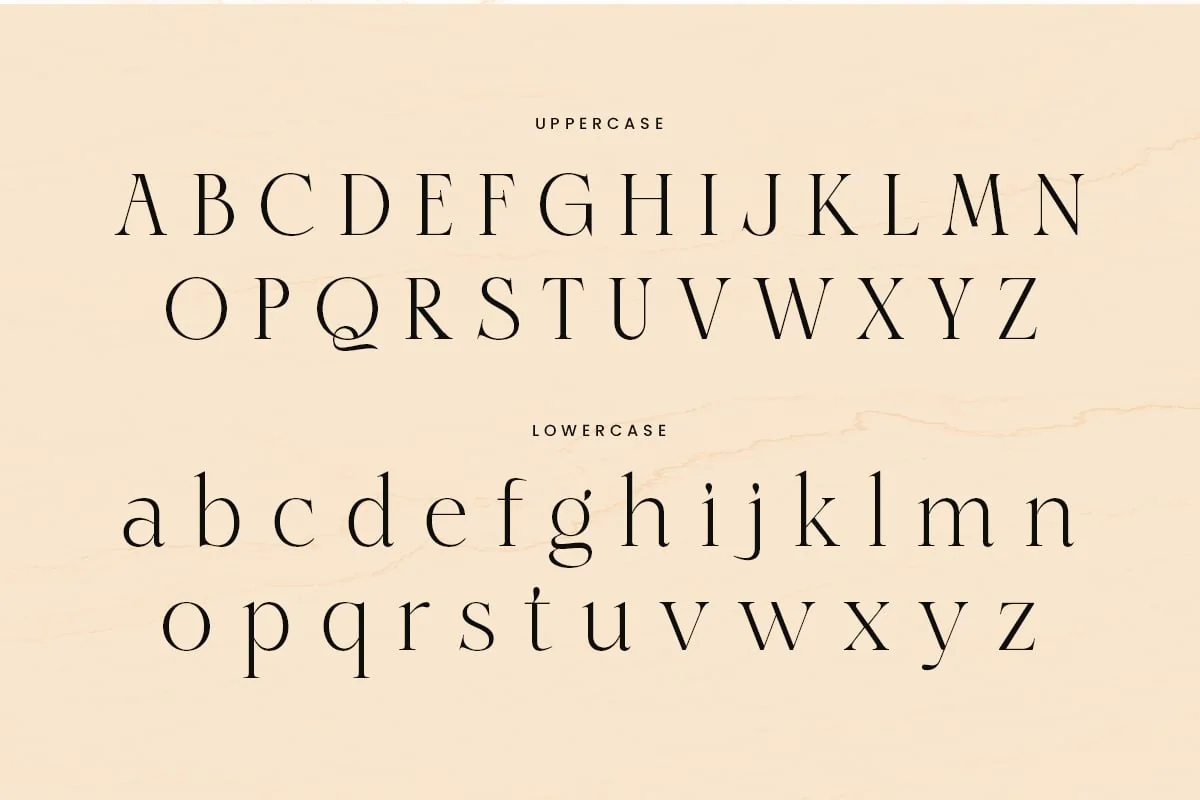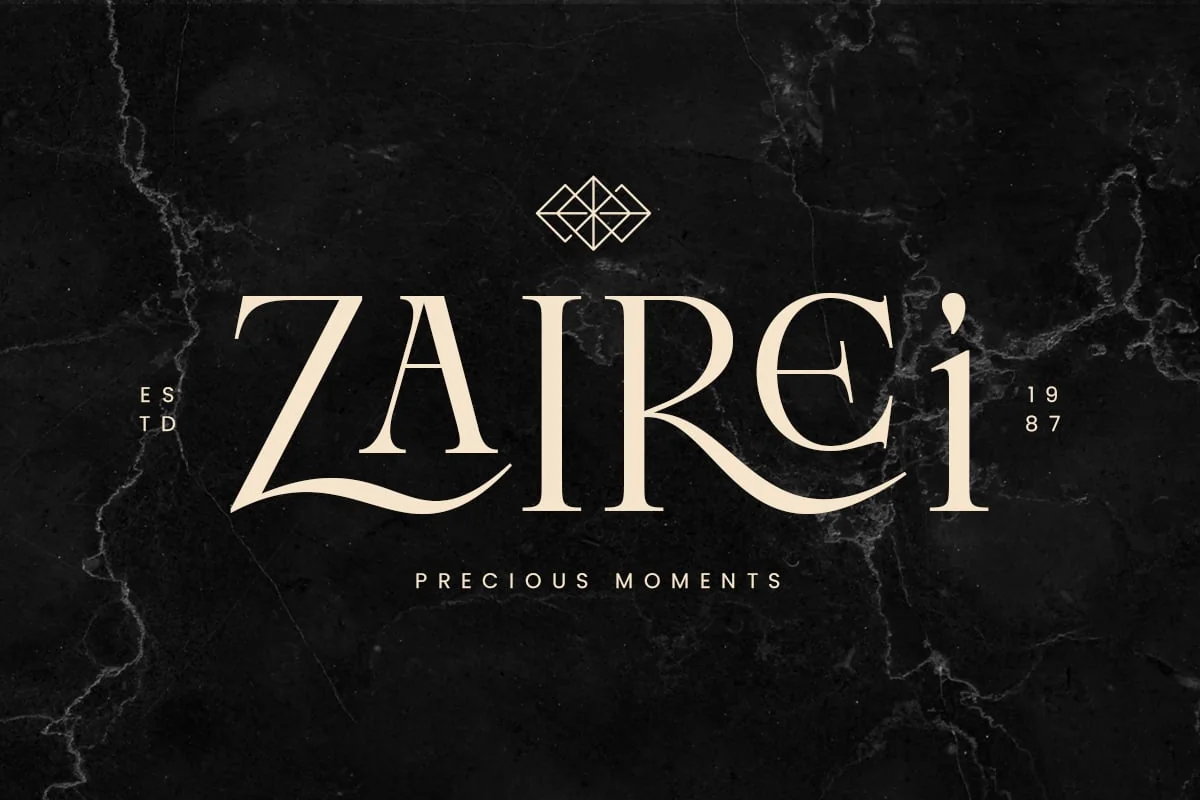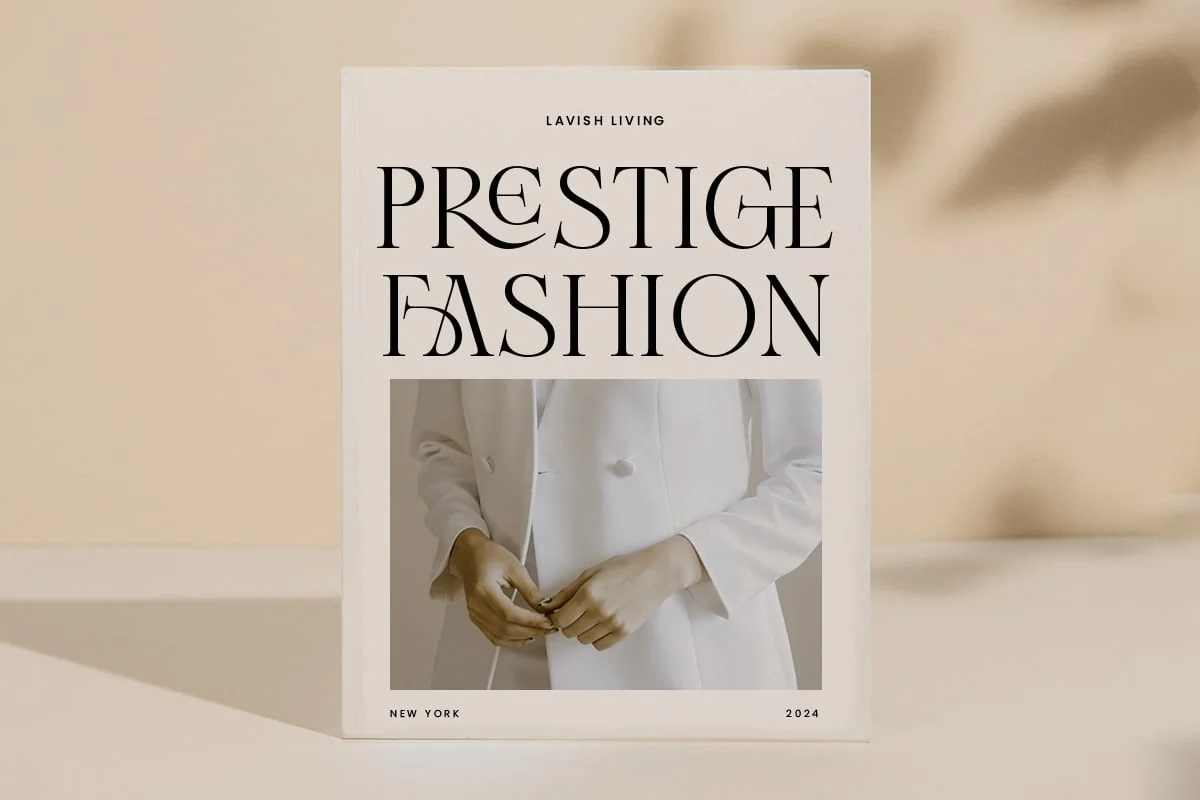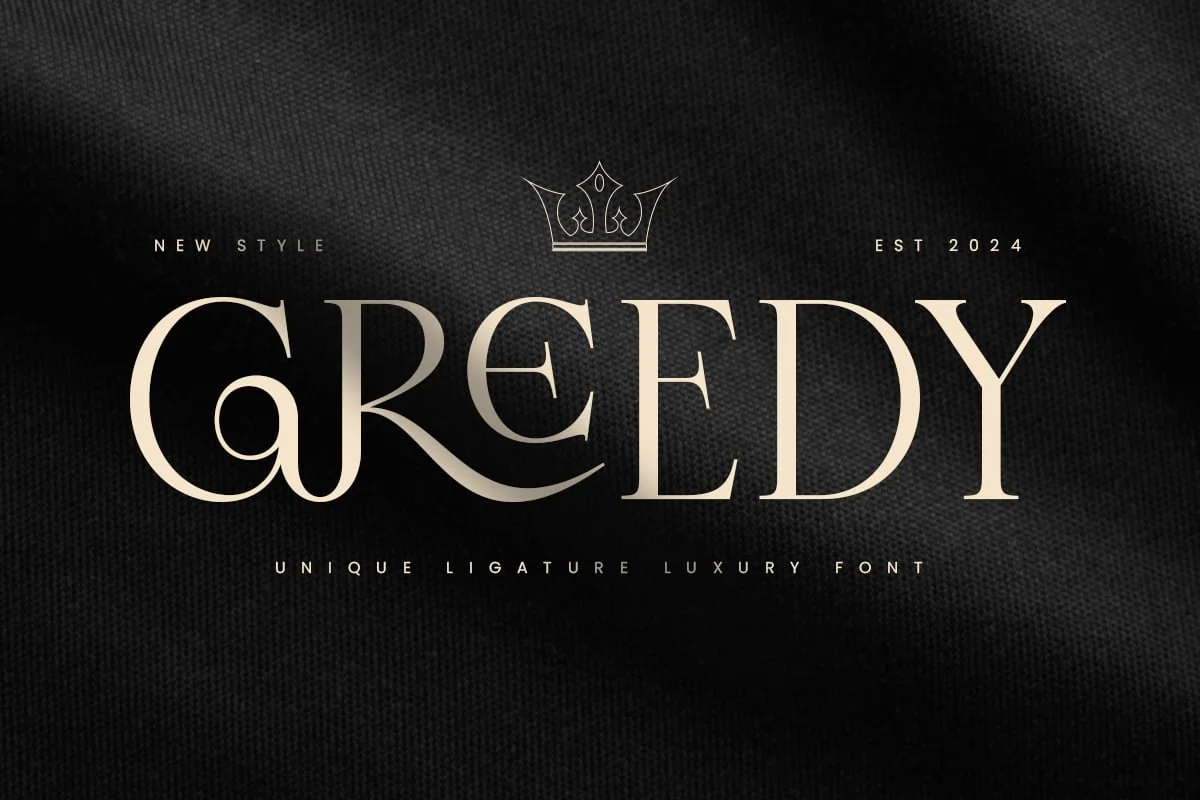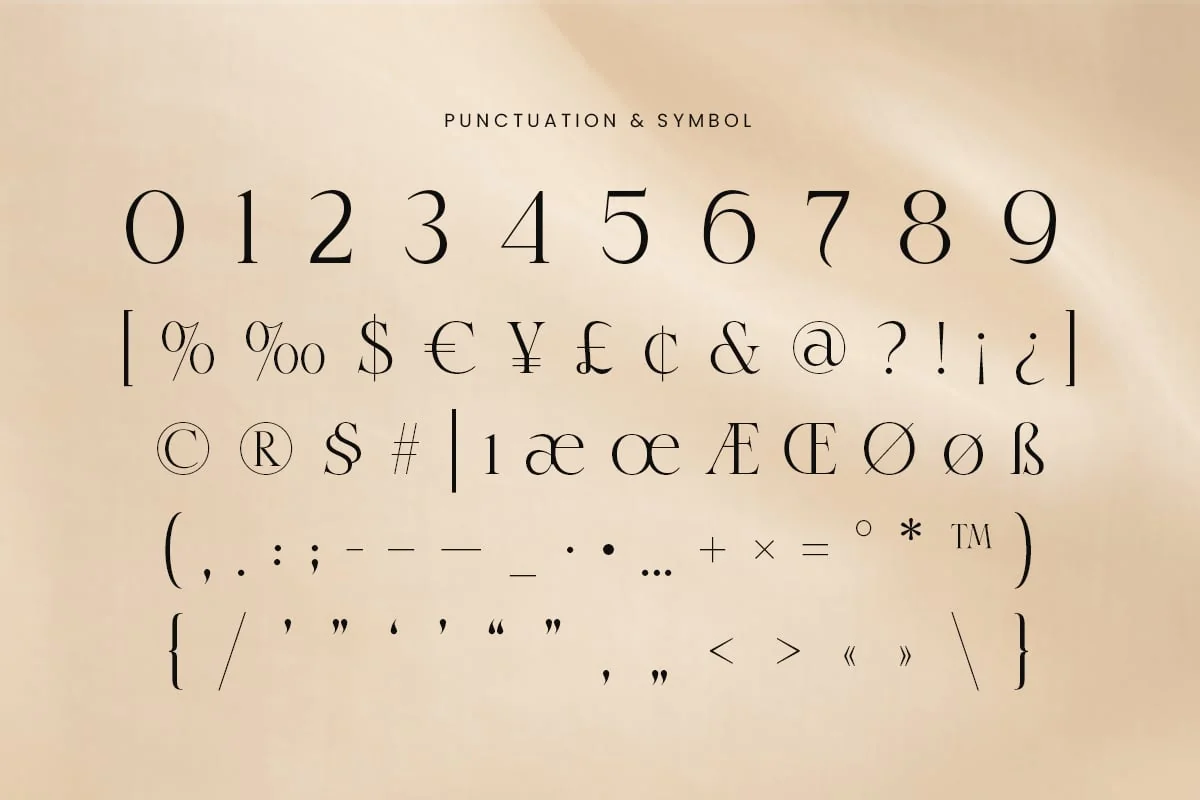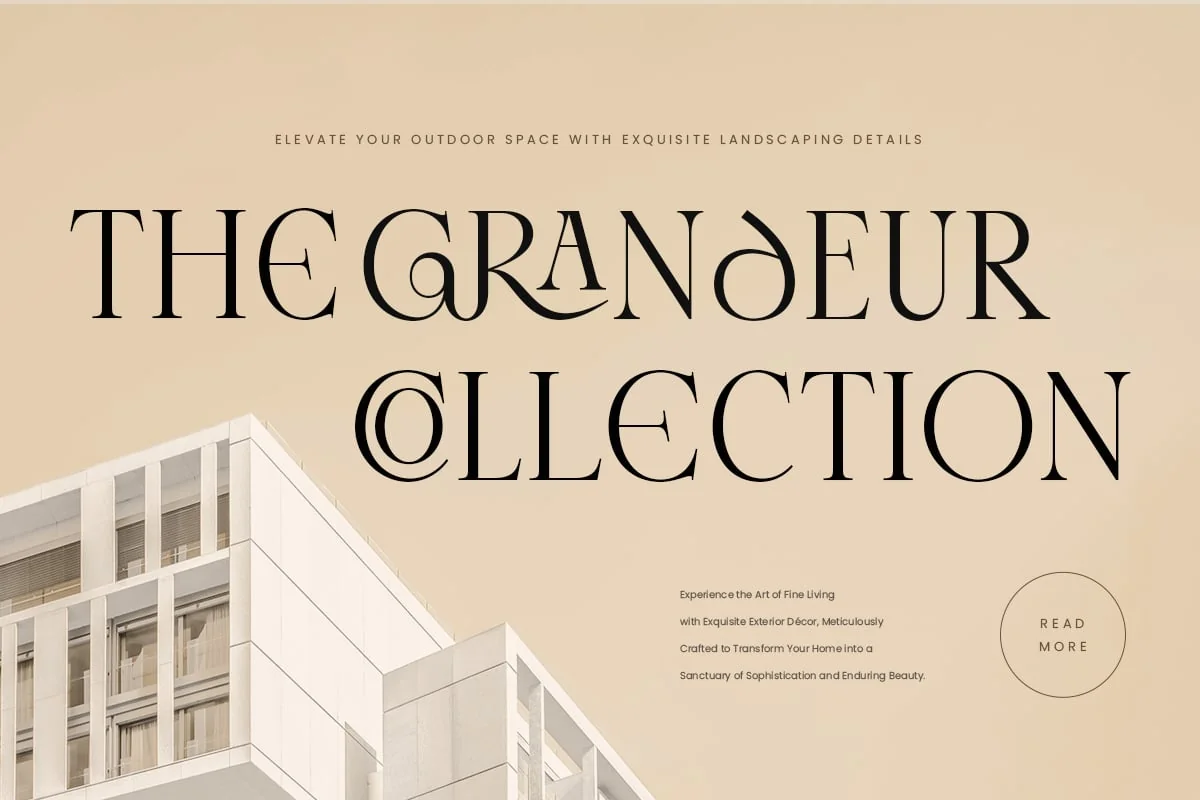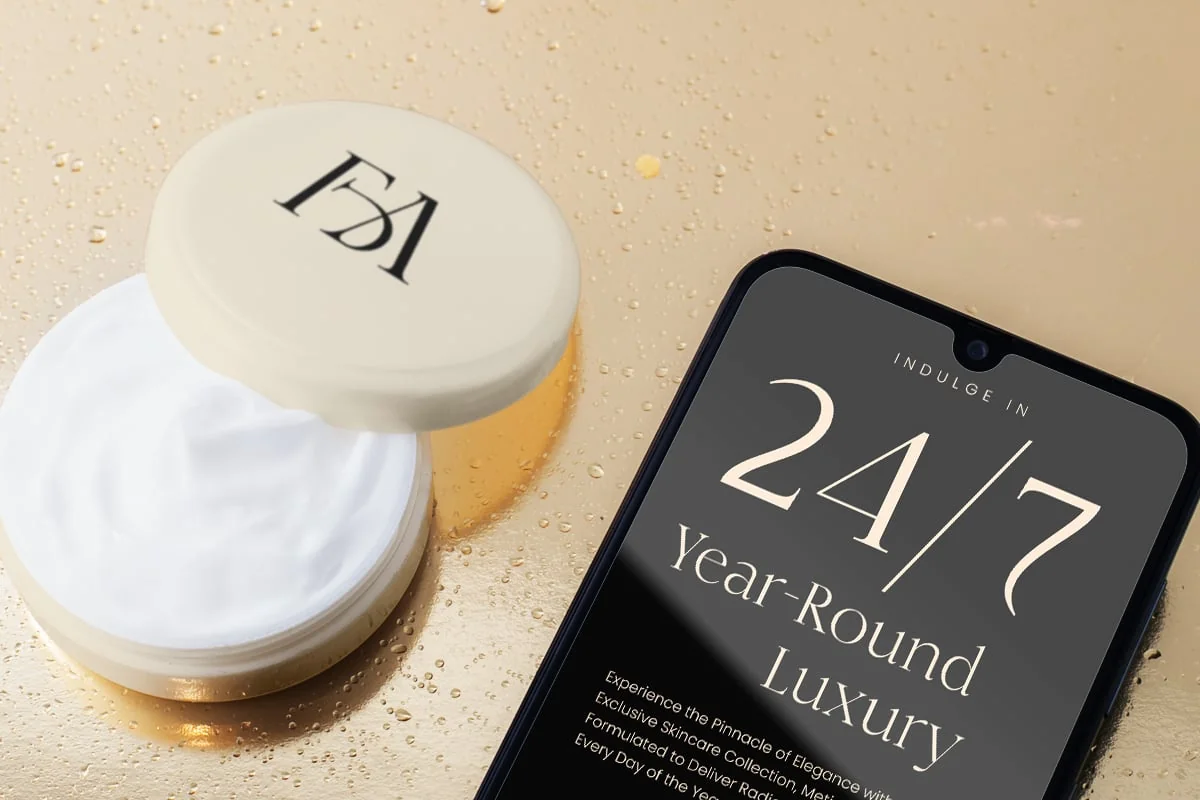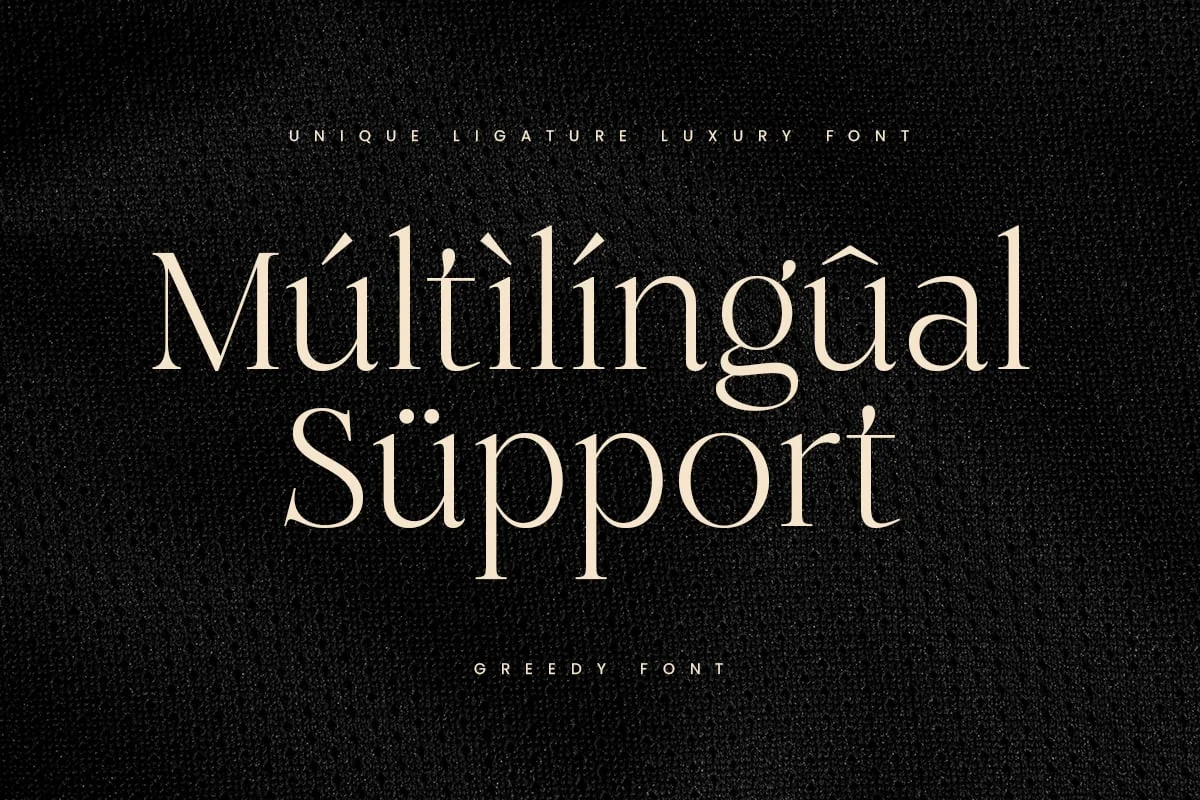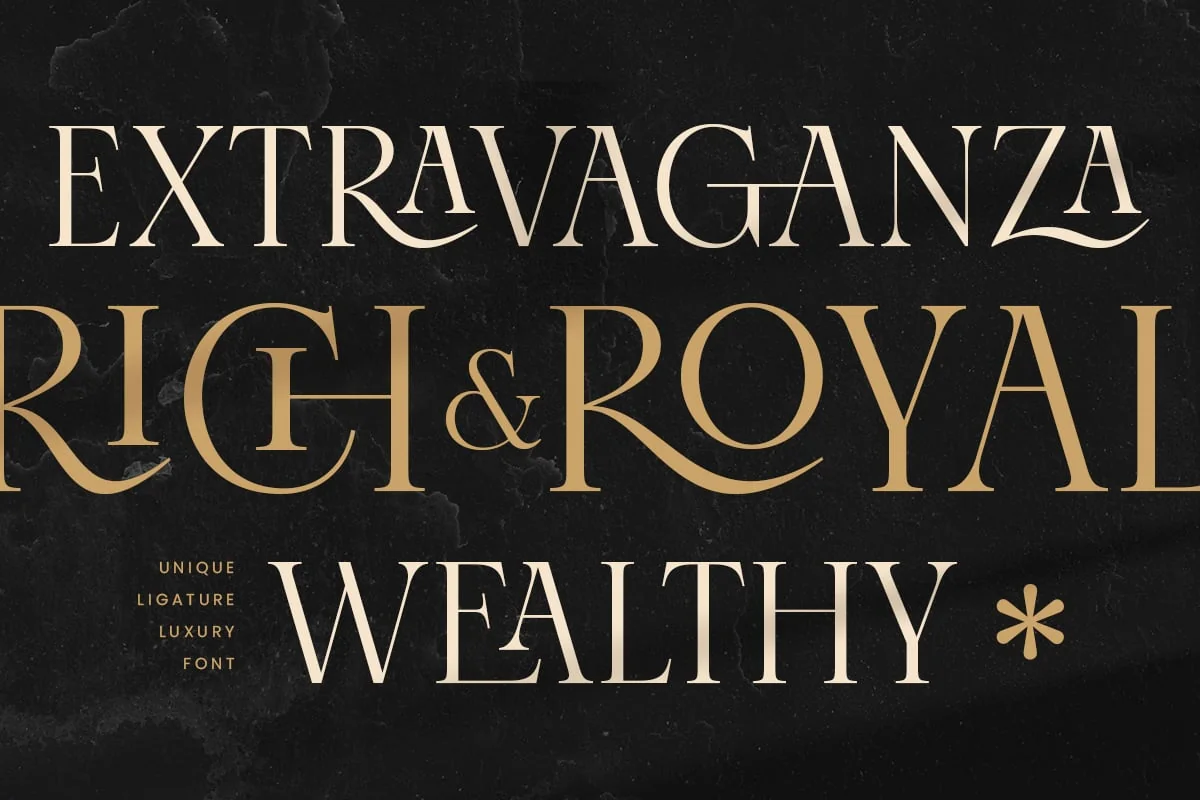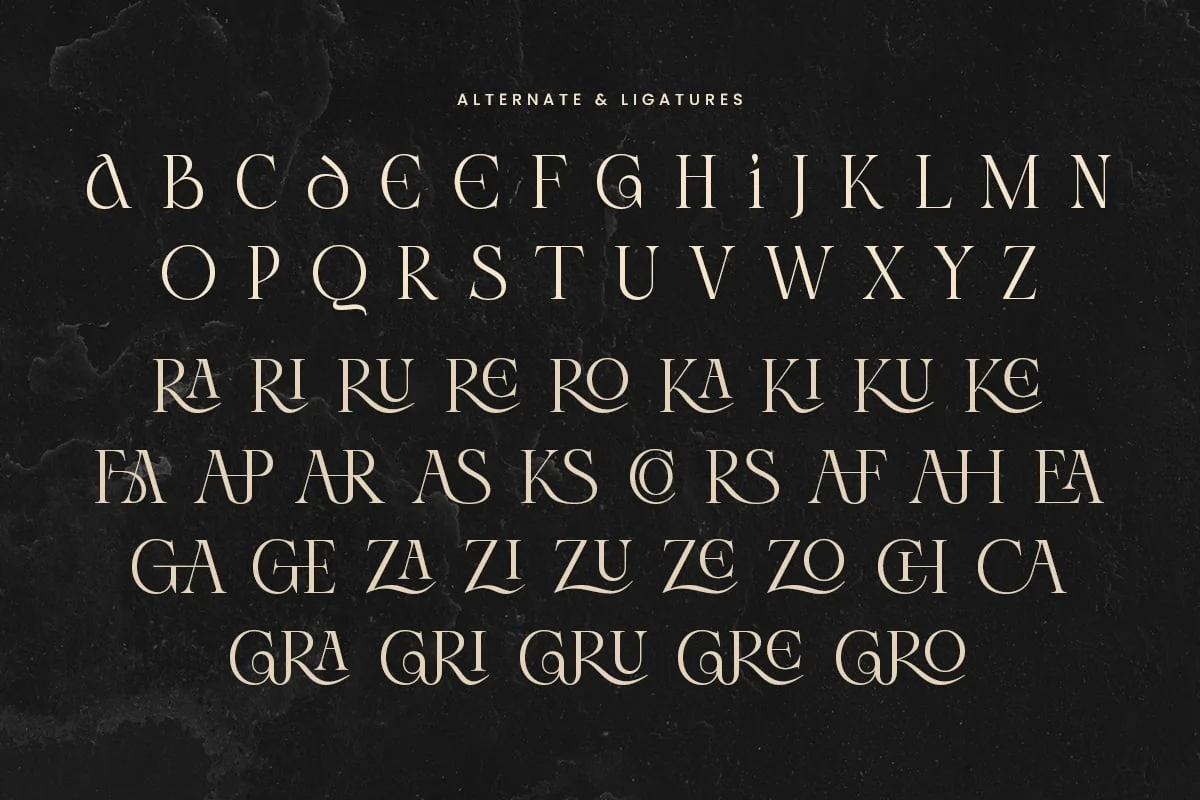
Greedy – Unique Ligature Luxury Font
Greedy is a sophisticated font created for those who seek luxury and elegance in their designs. With unique ligatures that add a refined, premium touch, Greedy is the perfect choice for brands, logos, and high-end projects that prioritize elegance and quality. Each character has been meticulously crafted to convey a sense of grandeur and exclusivity.
Drawing inspiration from classic luxury styles, Greedy seamlessly merges timeless serif elements with a modern flair. Its design is versatile yet distinct, making it ideal for everything from luxury branding to editorial use. This font elevates any project, providing an upscale look that captivates audiences and leaves a memorable impression.
Embrace the art of sophistication with Greedy, the go-to font for creating a luxurious, unforgettable experience. Suitable for both digital and print applications, it offers a versatile and polished aesthetic that’s bound to set your work apart.
Greedy Unique Ligature Luxury Font Features:
- Unique Alternate & Ligature Characters Ready
Multilingual Characters available for:
Afrikaans, Albanian, Asu, Basque, Bemba, Bena, Breton, Chiga, Cornish, Dutch, English, Estonian, Filipino, Finnish, Friulian, Galician, German, Gusii, Indonesian, Irish, Italian, Kabuverdianu, Kalenjin, Kinyarwanda, Luo, Luxembourgish, Luyia, Machame, Makhuwa-Meetto, Makonde, Malagasy, Manx, Morisyen, North Ndebele, Nyankole, Oromo, Portuguese, Quechua, Romansh, Rombo, Rundi, Rwa, Samburu, Sango, Sangu, Scottish Gaelic, Sena, Shambala, Shona, Soga, Somali, Spanish, Swahili, Swedish, Swiss.